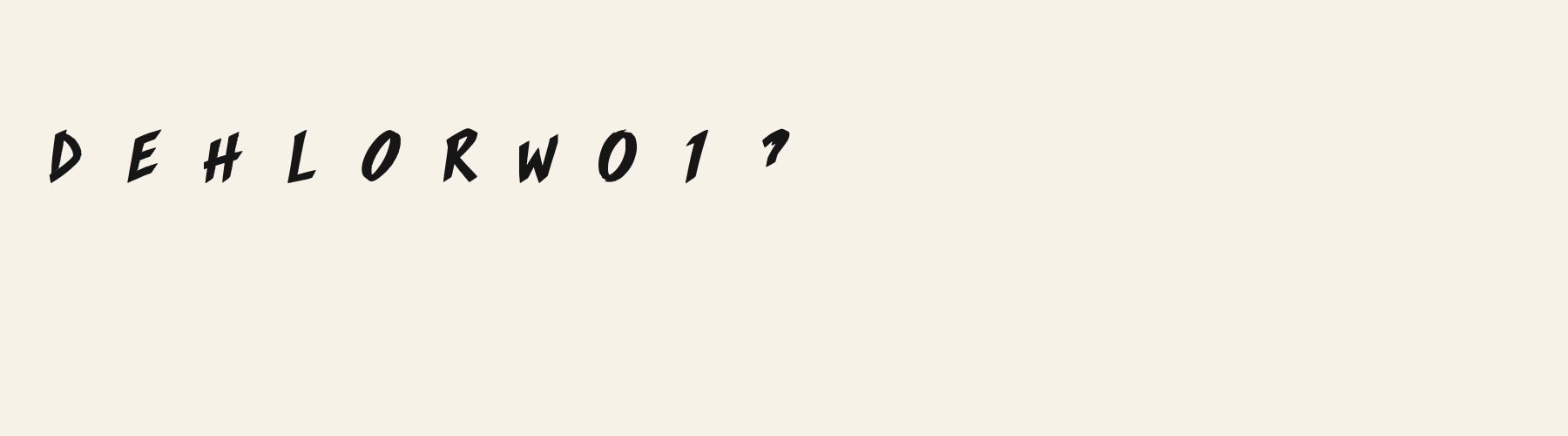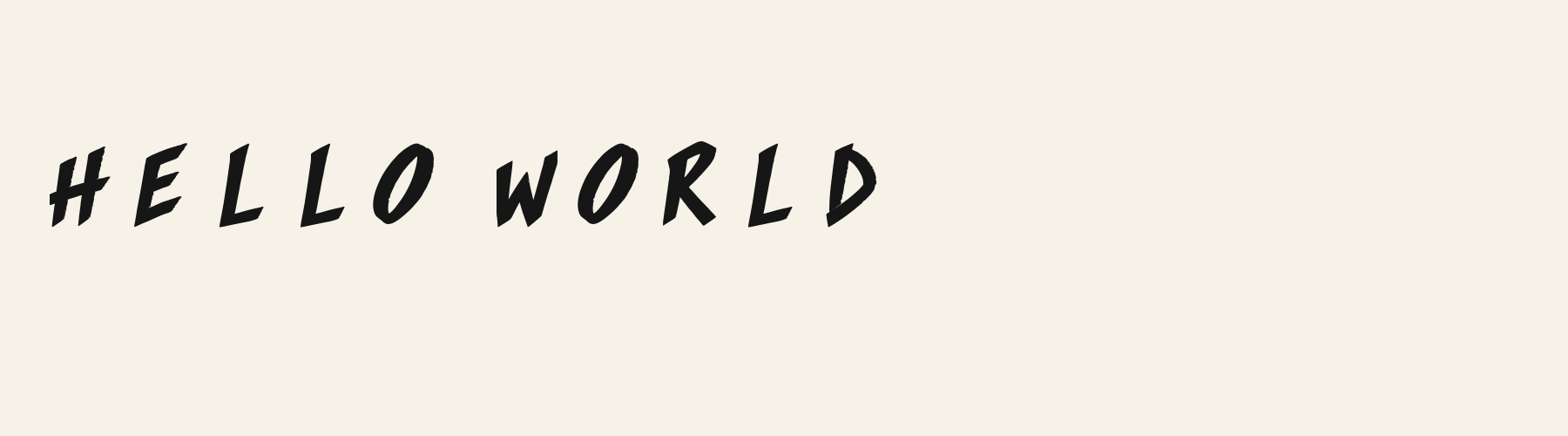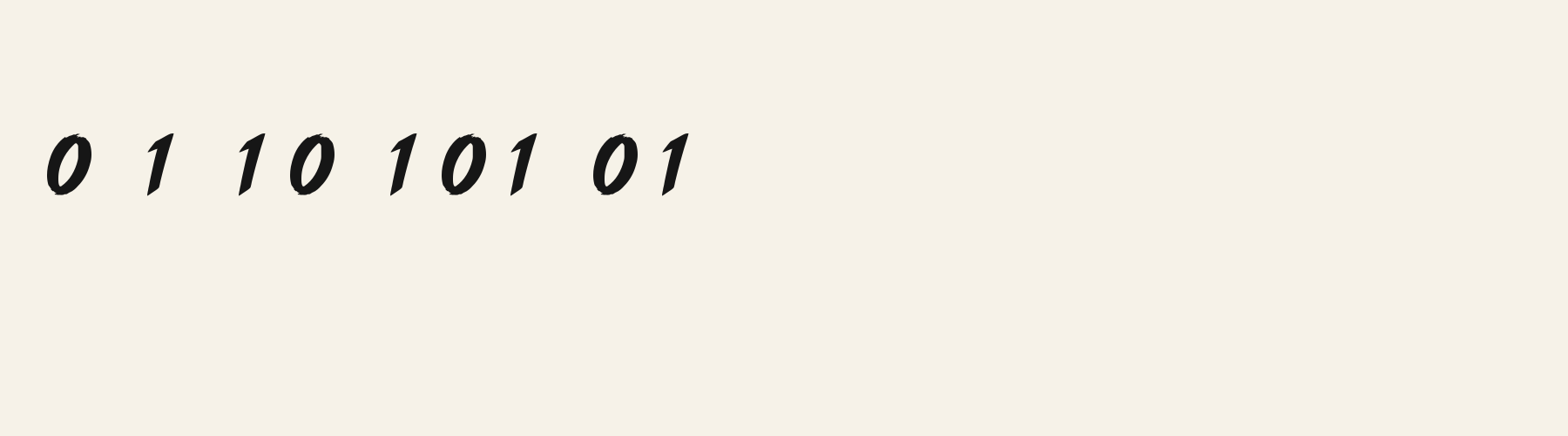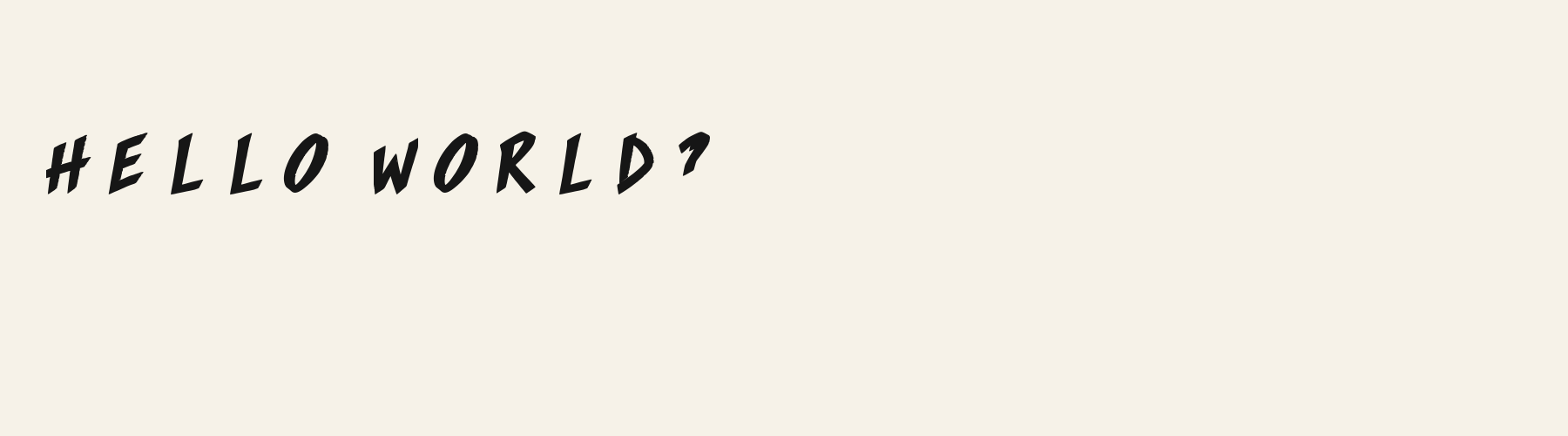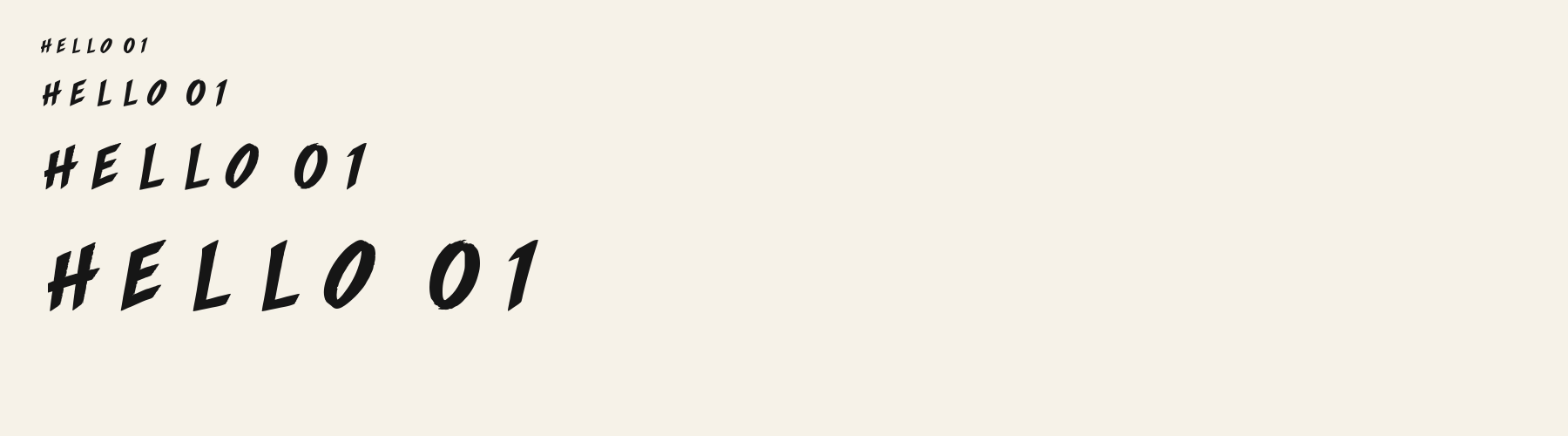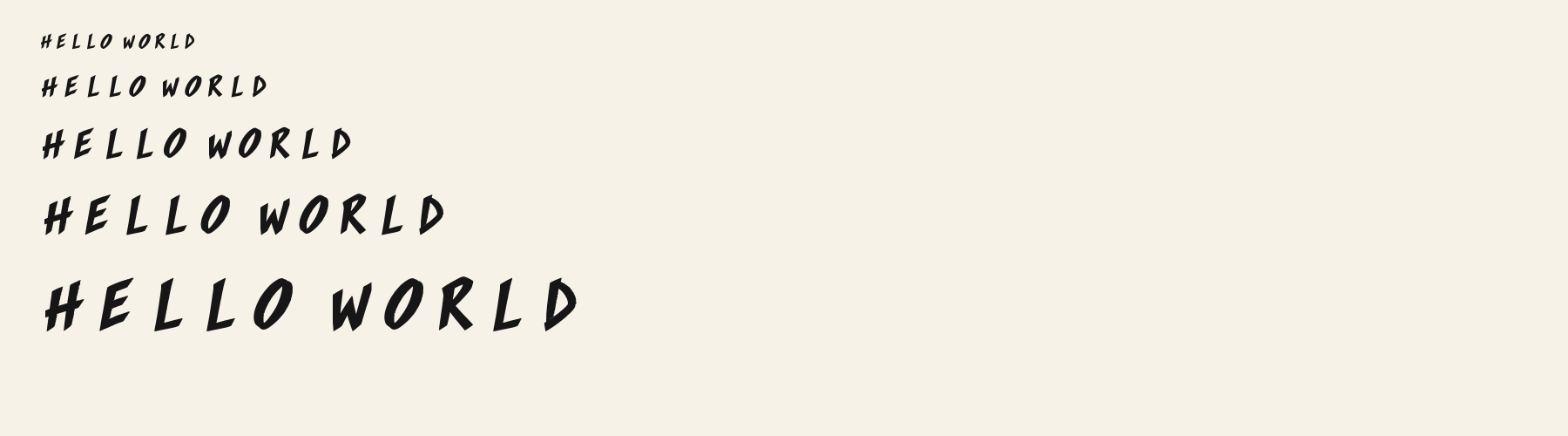
Marker Dry Chisel Slanted Wedge Lettering Font
Marker Dry Chisel has a forward lean and broad, dark strokes that end in pointed wedges.
Slanted Wedge Lettering Letterforms
Marker Dry Chisel has a forward lean and broad, dark strokes that end in pointed wedges. The H carries a rising crossbar that pushes beyond its stems, while the E opens into sharp, uneven arms. The O is noticeably shorter than its neighbors, with a narrow oval counter that tilts inside the surrounding ink. These differences make a line feel brisk and slightly restless without breaking the letters into scattered marks. Small irregularities roughen the edges, but the main strokes stay solid and connected. The result is assertive, informal lettering with enough angular detail to give short phrases a recognizable bite.
Inspect Latin counters, especially O and R, alongside the projecting H crossbar in your wording. Compare tighter and wider spacing around pointed terminals. Test lowercase separately from these uppercase specimens, and preview any Hangul text directly; the Latin samples establish neither its appearance nor its readability.
Try this face for short headings, with a regular sans serif handling descriptions and navigation. Its heavy wedges and leaning silhouettes give the heading plenty of emphasis; a companion with open counters and steady upright strokes could keep supporting text calm.
Marker Dry Chisel: letterforms and layout
H
Compare smaller and larger previews: the larger setting exposes the pointed stroke ends and slight edge irregularities. At the smaller setting, check whether the narrow counters and shorter O remain distinct beside the heavier stems.
Marker Dry Chisel gives this phrase broad dark strokes, pointed ends and a strong forward lean. Its shorter O and angular W create a brisk, uneven rhythm suited to an emphatic heading.
Kids Backslant Print uses thinner, more even strokes with rounded ends and more open interiors. Its H and E feel loosely handwritten, giving the same uppercase phrase a gentler, more conversational presence.
Product label. Broad ink masses and pointed terminals give a short product label an assertive, handwritten character. MAKE SOME NOISE
Social post. The forward lean and angular stroke endings bring movement to a brief announcement framed by generous empty space. FRESH IDEAS
Website headline. Heavy strokes and sharply cut arms give a short website heading a distinct voice above quieter supporting copy.
About Marker Dry Chisel
Its lowercase sits low: the x-height is 70.3% of the cap height, where the median for handwriting fonts is 73.2%, lower than 21 of the 29 other handwriting fonts. Ascenders on b, d, h, k and l rise 6.7% above the capitals, and descenders on g, j, p, q and y drop 15.1% of the cap height below the baseline, shallower than 27 of the 29 other handwriting fonts. Marker Dry Chisel runs 10.8% narrower than the median for handwriting fonts: an average lowercase letter, spacing included, is 64.6% as wide as the capitals are tall (an average capital, 73.1%). The o is an upright oval, 0.80 times as wide as it is tall, and no capital is wider than H. The O stops 11.1% of the cap height short of H and stands 8.1% above the baseline.
Vertical stems measure 16.9% of the cap height, heavier than 14 of the 18 other handwriting fonts. Ink covers 39.1% of each lowercase letter's box (its advance width by the cap height), darker than 22 of the 29 other handwriting fonts. It is close to monoline, with the sides of o and O 0.94 times as thick as their tops and bottoms.
Its 2,496 characters include 2,401 Korean Hangul and 52 Latin letters, plus 43 figures, punctuation marks and symbols; there are no accented Latin letters beyond A to Z. The word space measures 45.8% of the cap height, and the blank space either side of a lowercase letter takes up 15.5% of its width. The font carries no kerning, so spacing comes from each letter’s own side bearings. The figures have different widths, so columns of numbers set in Marker Dry Chisel will not line up exactly.